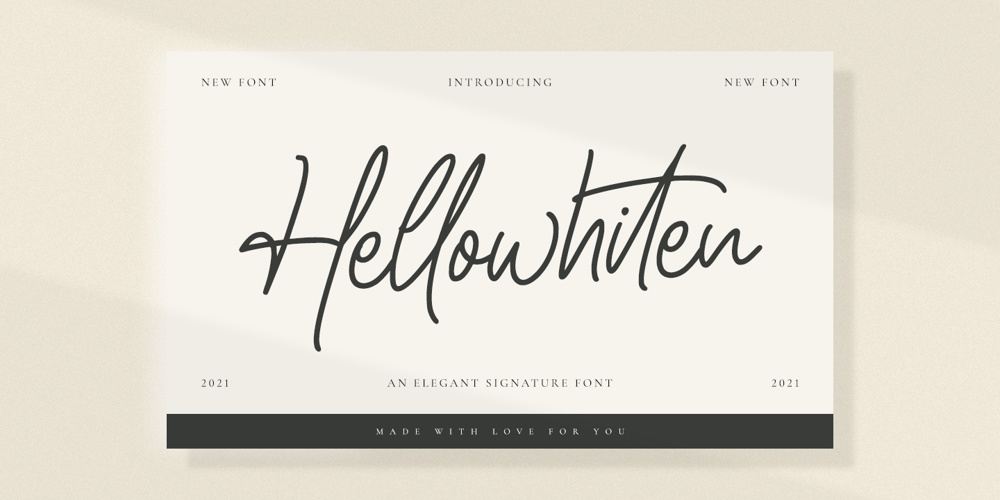
Hellowhiten Font Family was designed by Hayinah and published by Rockboys Studio. Hellowhiten contains 1 styles and family package options. Hellowhiten is a thin lettered and graceful script font. Fall for its ravishing style and use it to create gorgeous wedding invitations, beautiful stationary art, eye-catching social media posts, and much more!